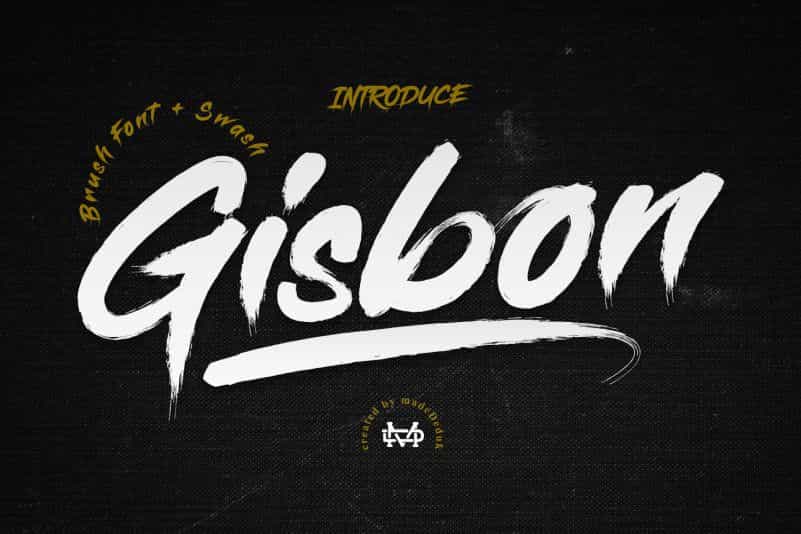
Gisbon is a modern brush typeface that is unique and can be used for a variety of purposes. It is suitable for posters, book covers, merchandise, fashion promotions, newsletters, branding, advertisements, magazines, greeting cards, album promotions, and quote designs and many more.